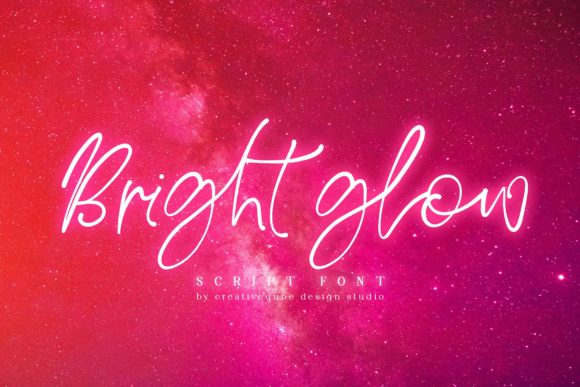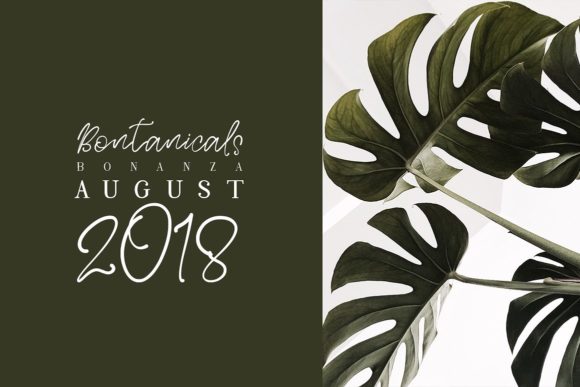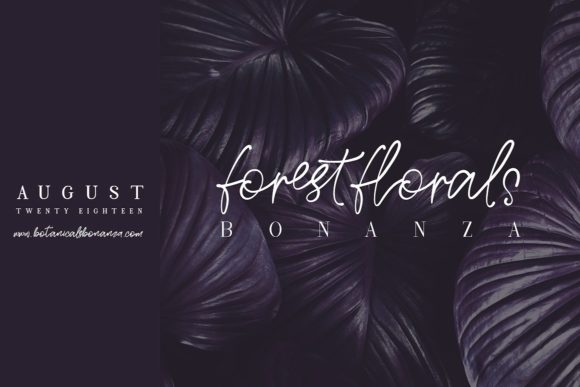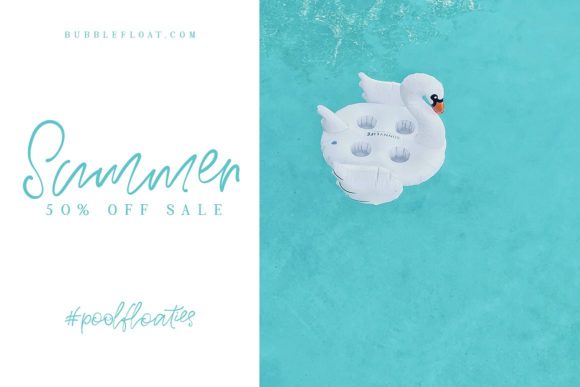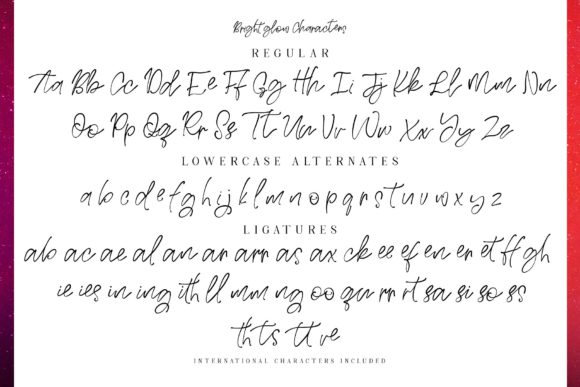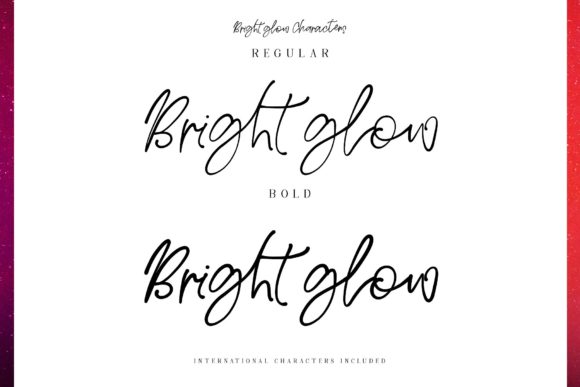
Bright Glow Font
About Bright Glow Font
The Bright Glow is an amazing script font. This cute happy little font is bright and bouncy and has a friendly touch. Although it’s not actually so little – in fact it includes a full set of lowercase alternates – Plus extra ligatures to create that authentic hand written look!